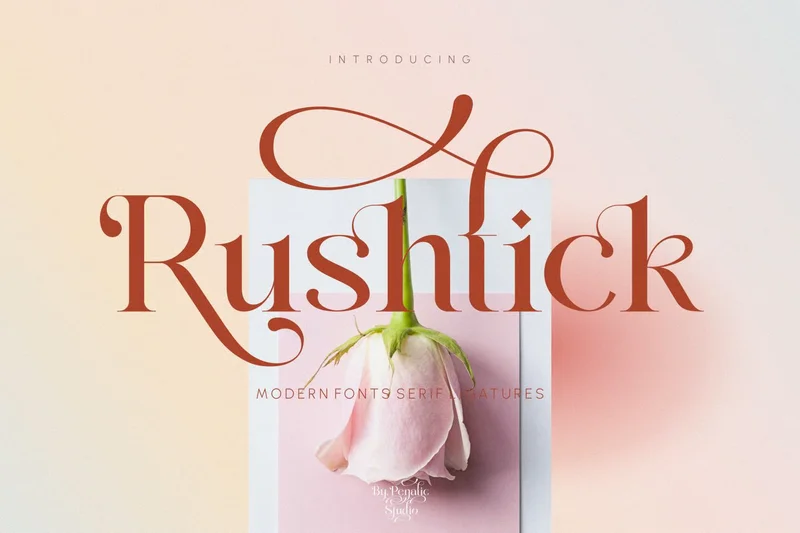
Rushtick
Introducing our new product. Rushtick _ Modern serif ligature font. Very finely designed modern font. with lots of binders and alternative letters that will make your project look more elegant and beautiful. Great for branding projects and more.